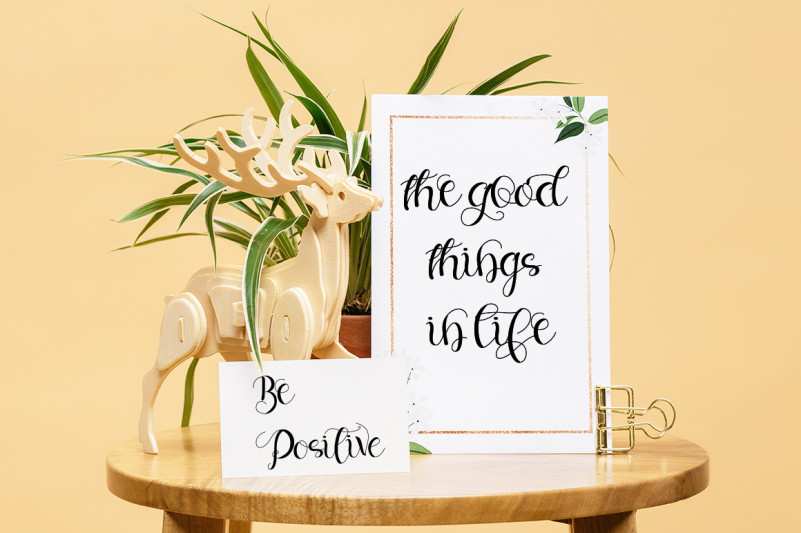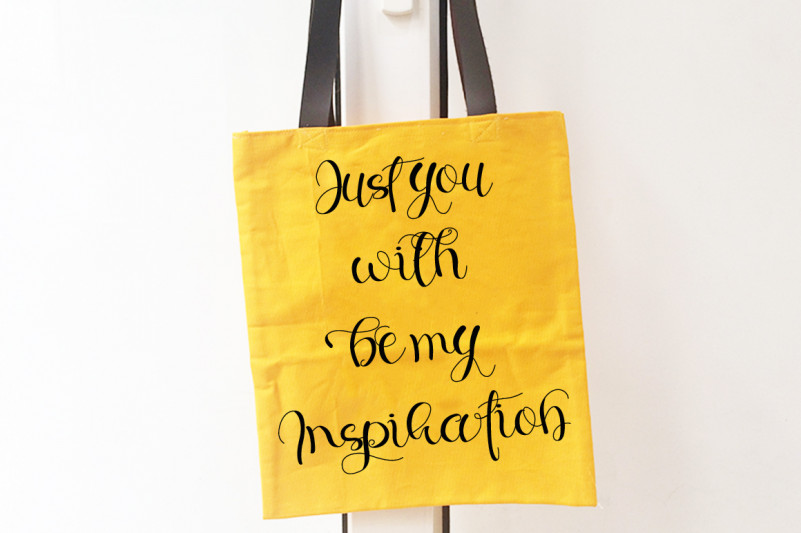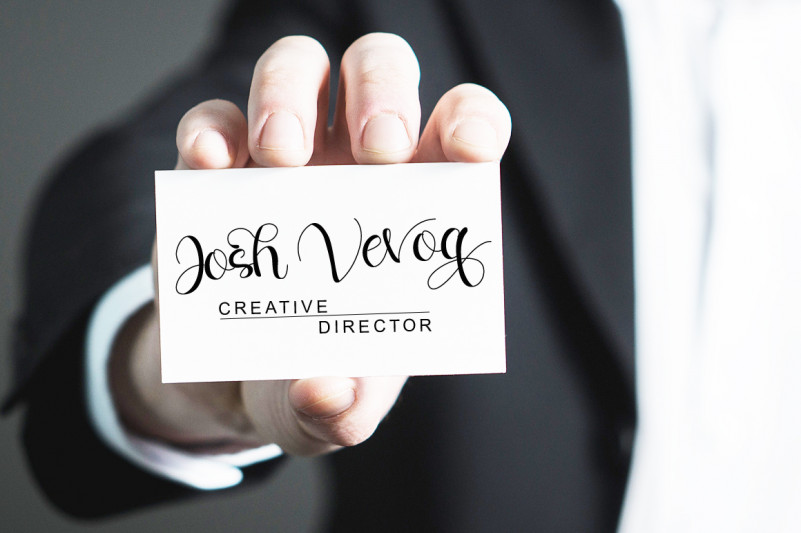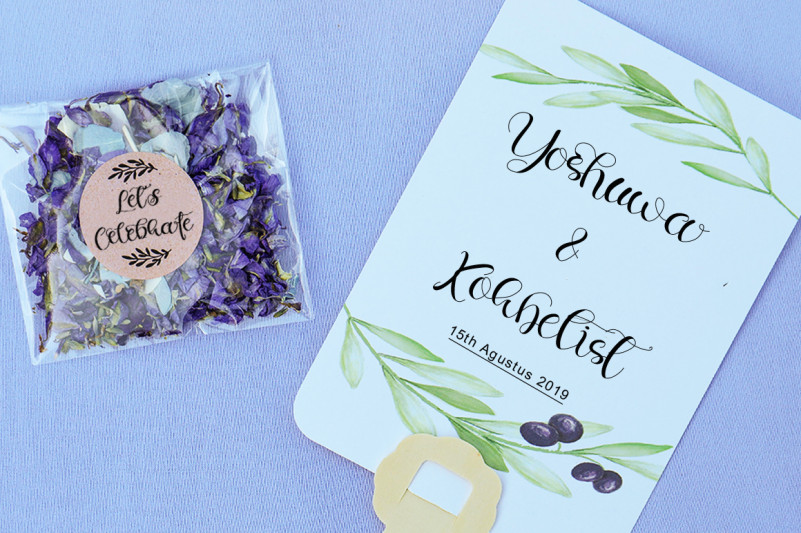
Keorta Script Font
Keorta Script Font is a handwritten font, made with ordinary pens and markers, with a sweet touch and beautiful curves on each letter. This font is great for your next creative project.
Keorta Script is perfect for fashion magazines, product watermarks, wedding designs, social media posts, advertisements, product designs, label product, logo product cosmetics, logo product perfumes, photography, invitation, and any projects that need a handwritten taste.